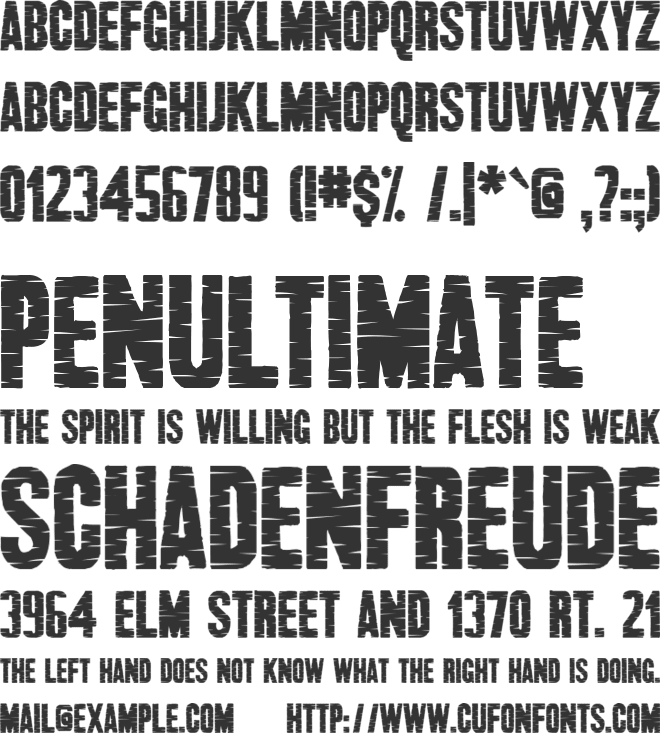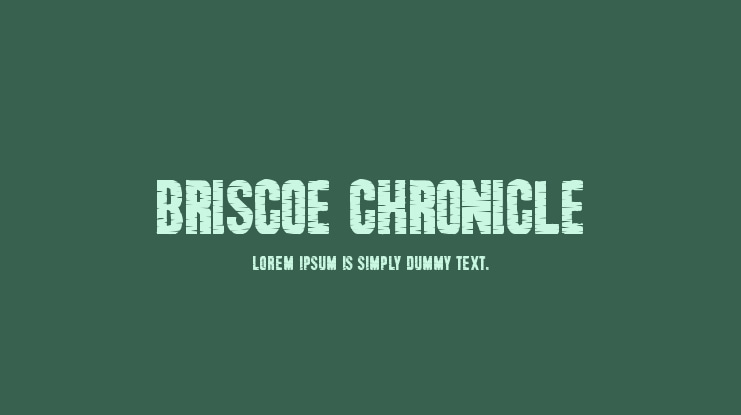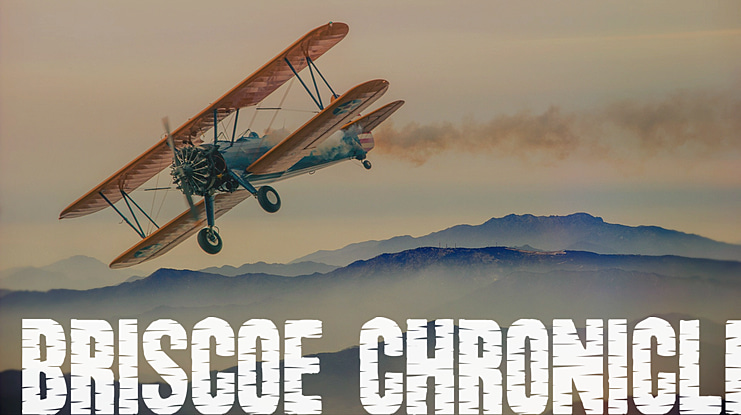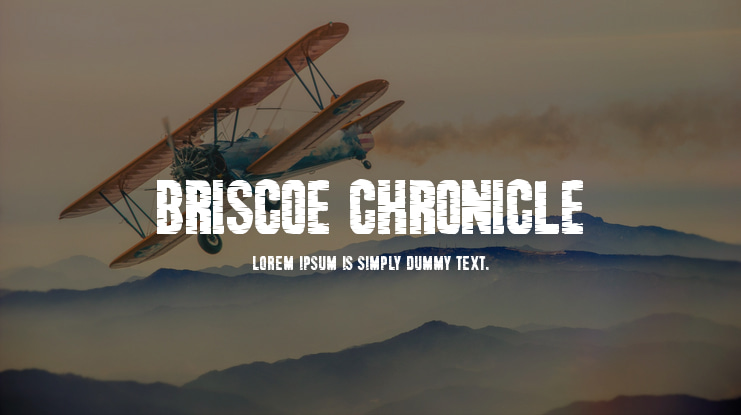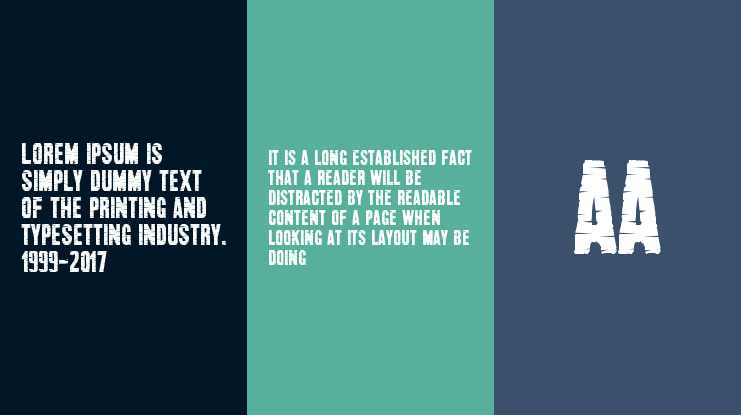
Briscoe Chronicle Font Family
Briscoe Dispatch is designed to look like an old, lead-type newspaper headline. Most of the glyphs are pretty grungy. Briscoe Chronicle turns the grunge up a notch with angry slices out of all the glyphs.